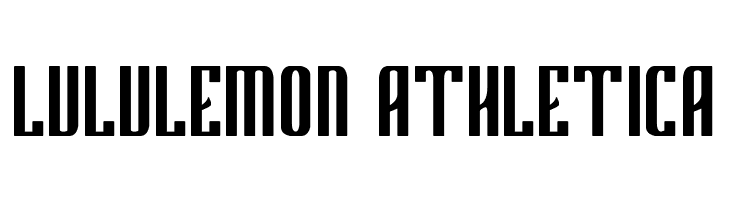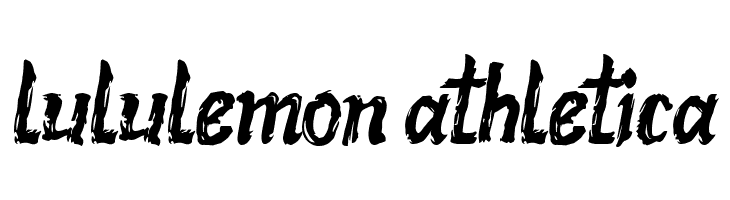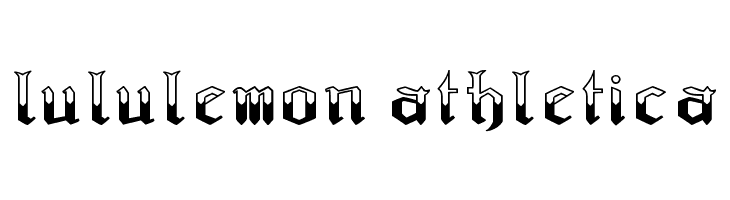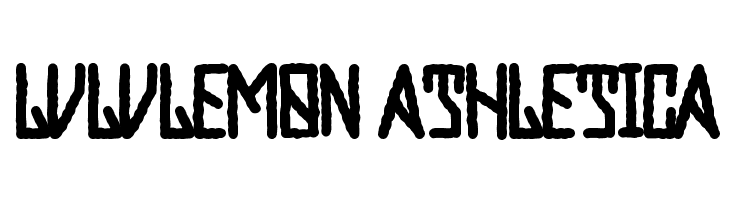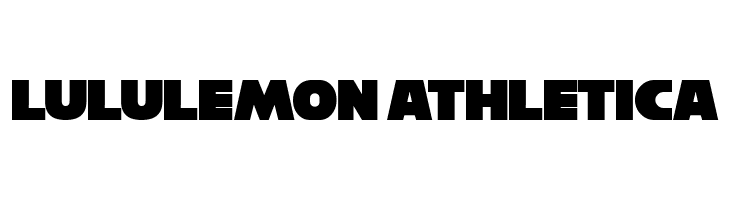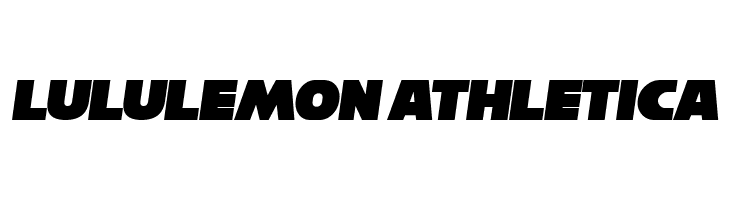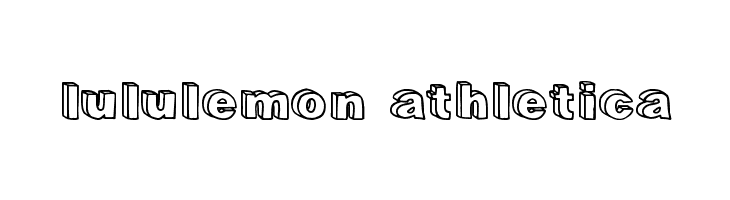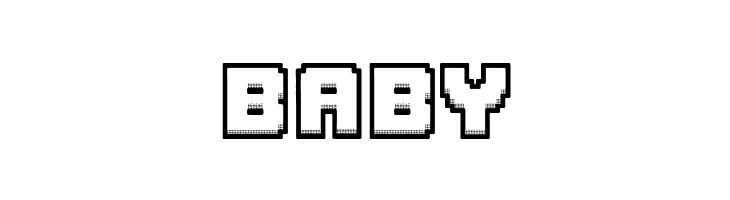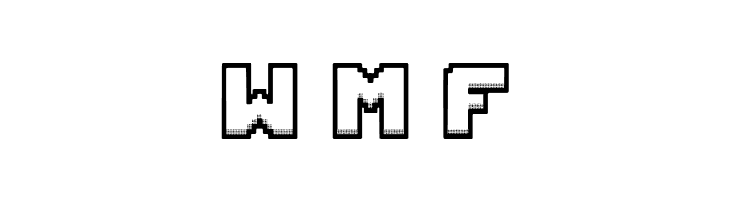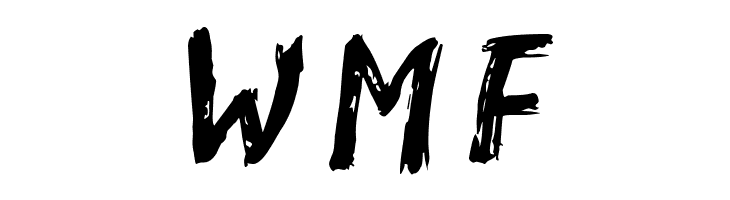
A bold, brushstroke-style font with a dynamic and textured appearance.
A bold, geometric font with sharp angles and a modern aesthetic.
A bold, graffiti-inspired font with thick, irregular strokes and a rebellious aesthetic.
A bold, playful font with a 3D outlined effect, perfect for lively designs.
A bold, pixelated font with a retro, video game-inspired style.
A playful, hand-drawn font with a bold, outlined style.
A vintage serif font with a textured, handcrafted appearance.
A bold, geometric font with a modern and powerful aesthetic.
A bold, italic font with a dynamic and modern style.